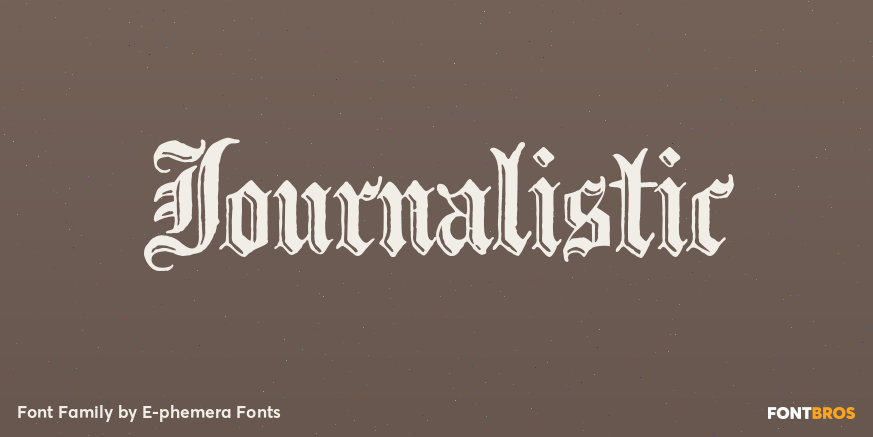
Journalistic
About Journalistic
Journalistic is one in a series of fonts designed for use in creating replica vintage newspapers. It is inspired by the nameplate of a New England newspaper from the 1920s. Its rough character is apparent at headline sizes, and it remains nicely legible…